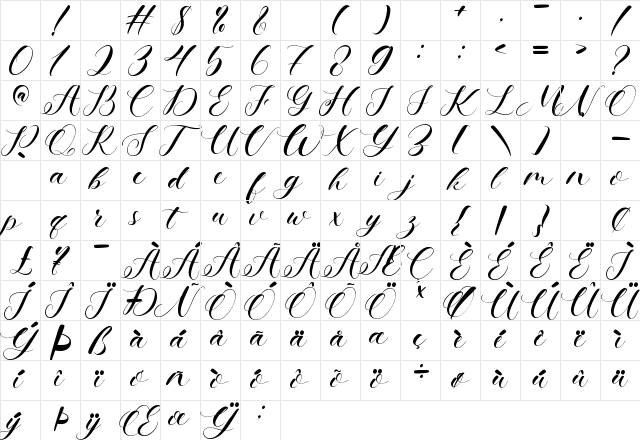
Complete Christmas Twinkle-Personal use Regular glyph index. Displaying only characters natively supported by Christmas Twinkle-Personal use Regular font.
Christmas Twinkle-Personal use is a composed and adaptable typeface that performs quietly and consistently across a wide range of design contexts.